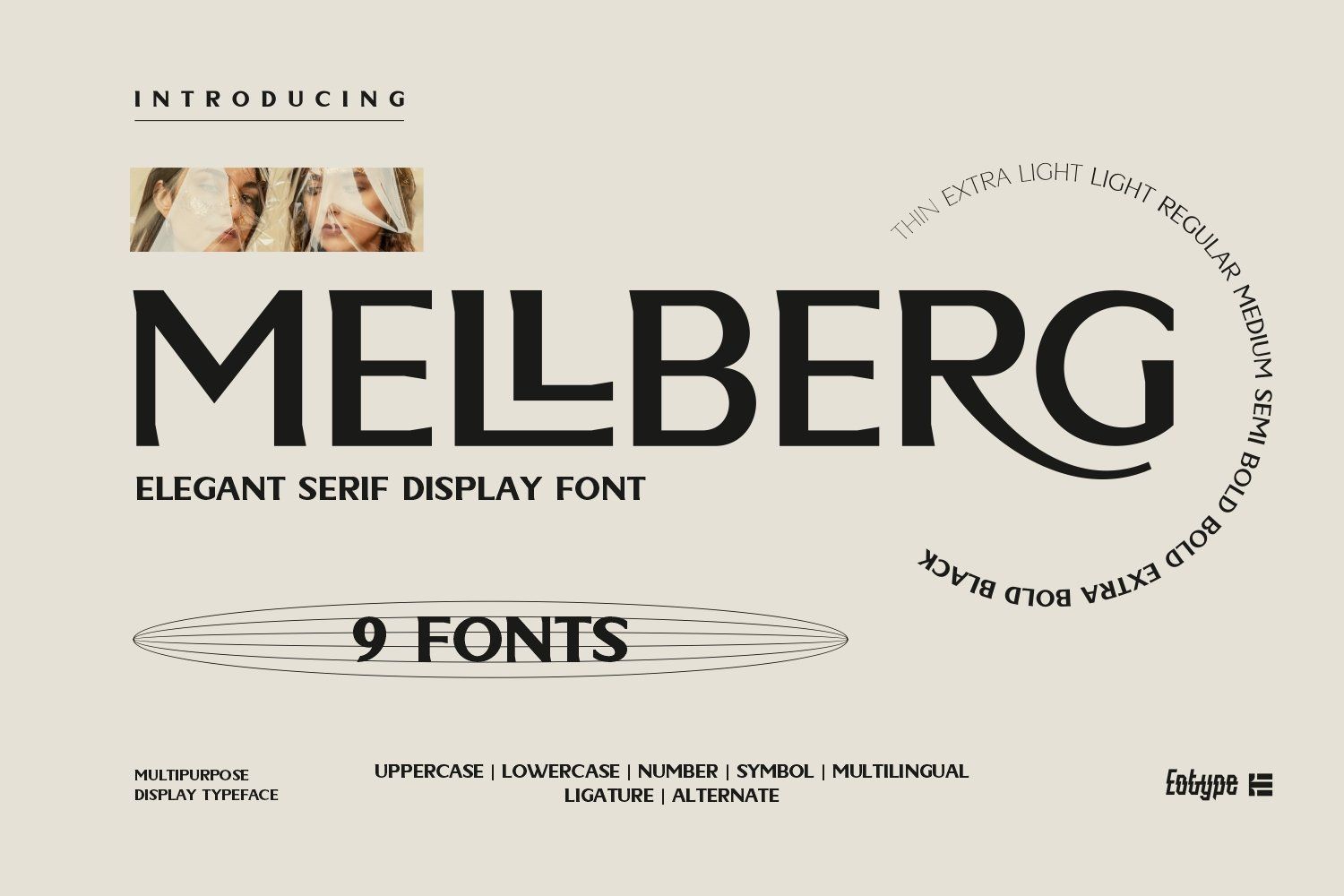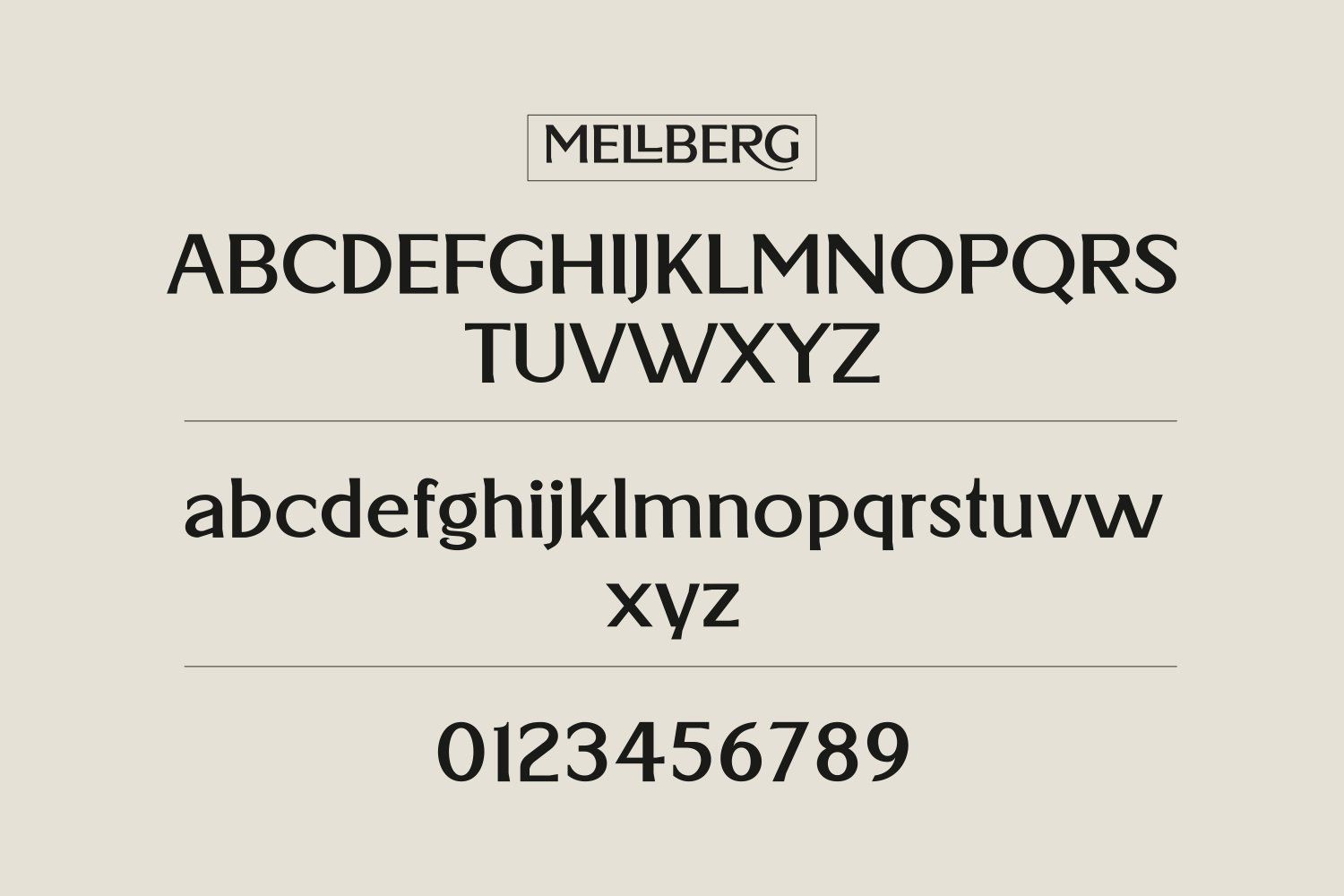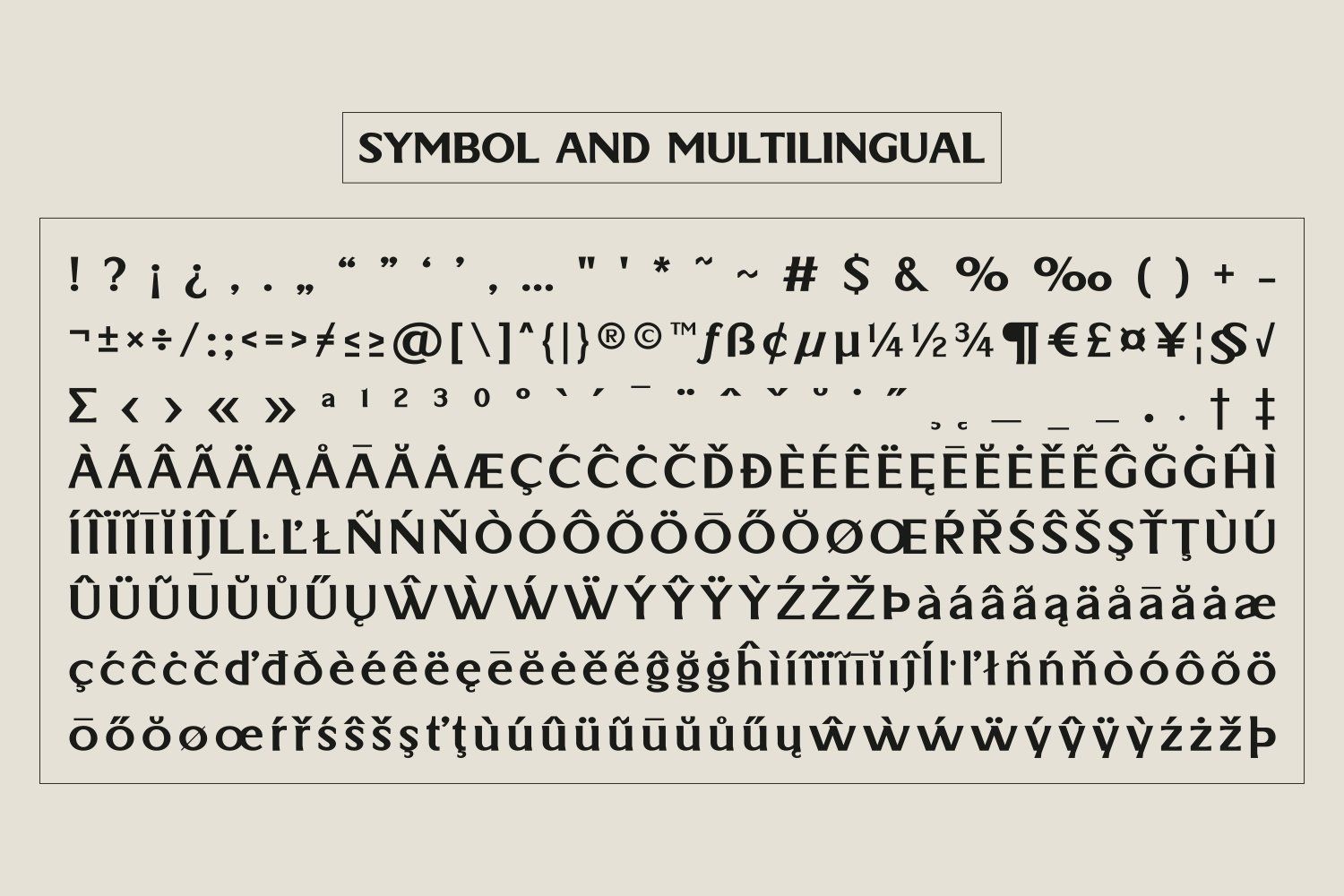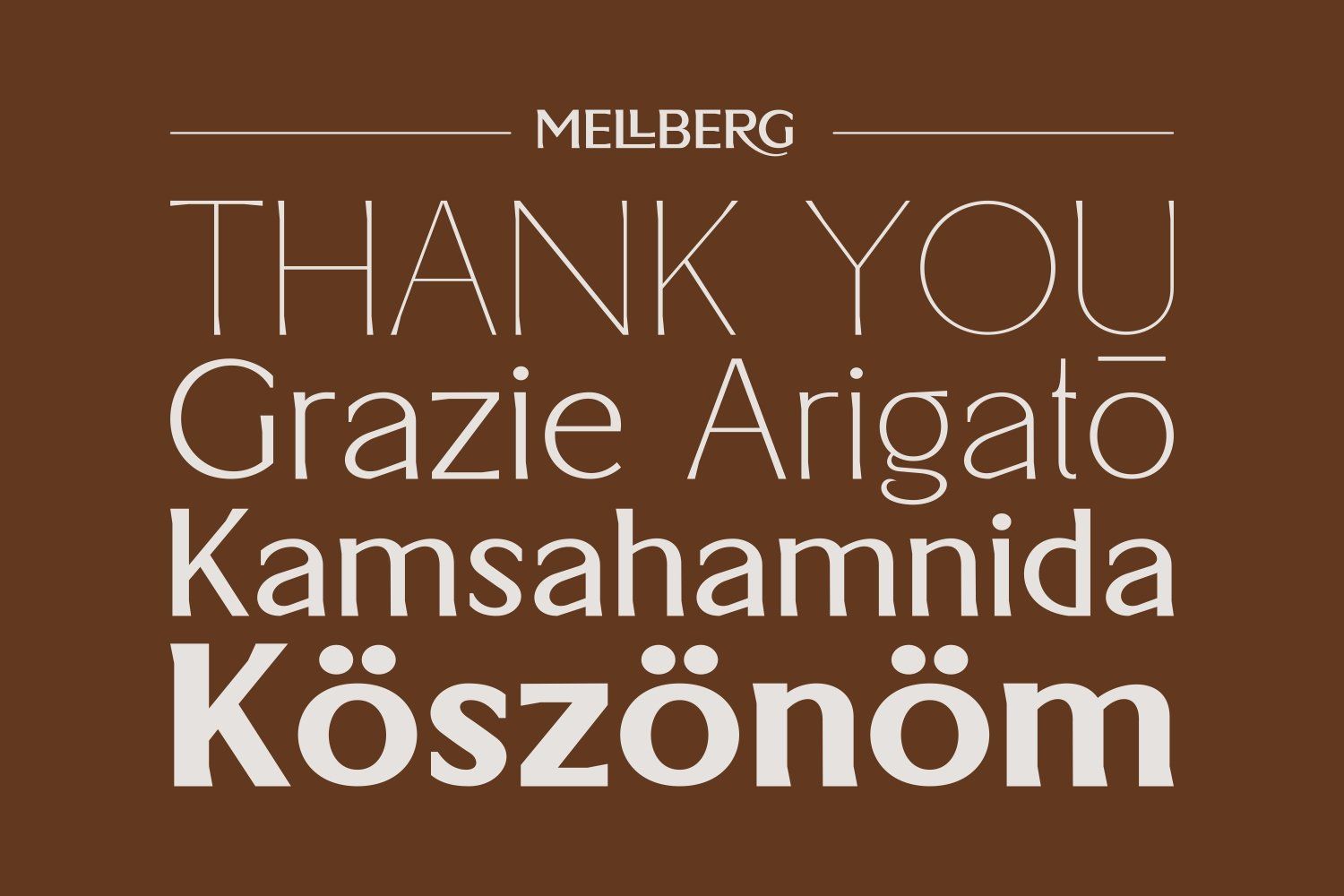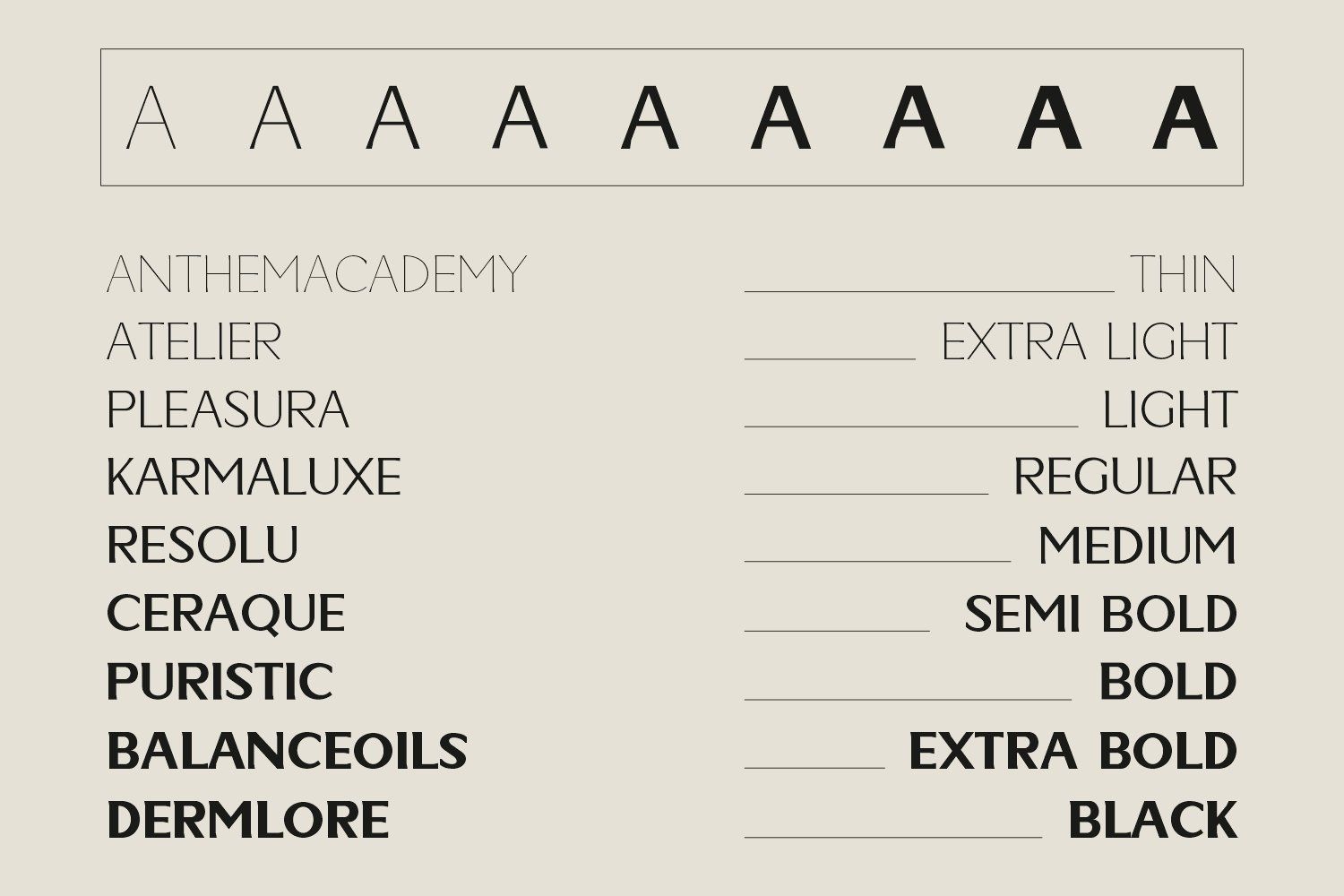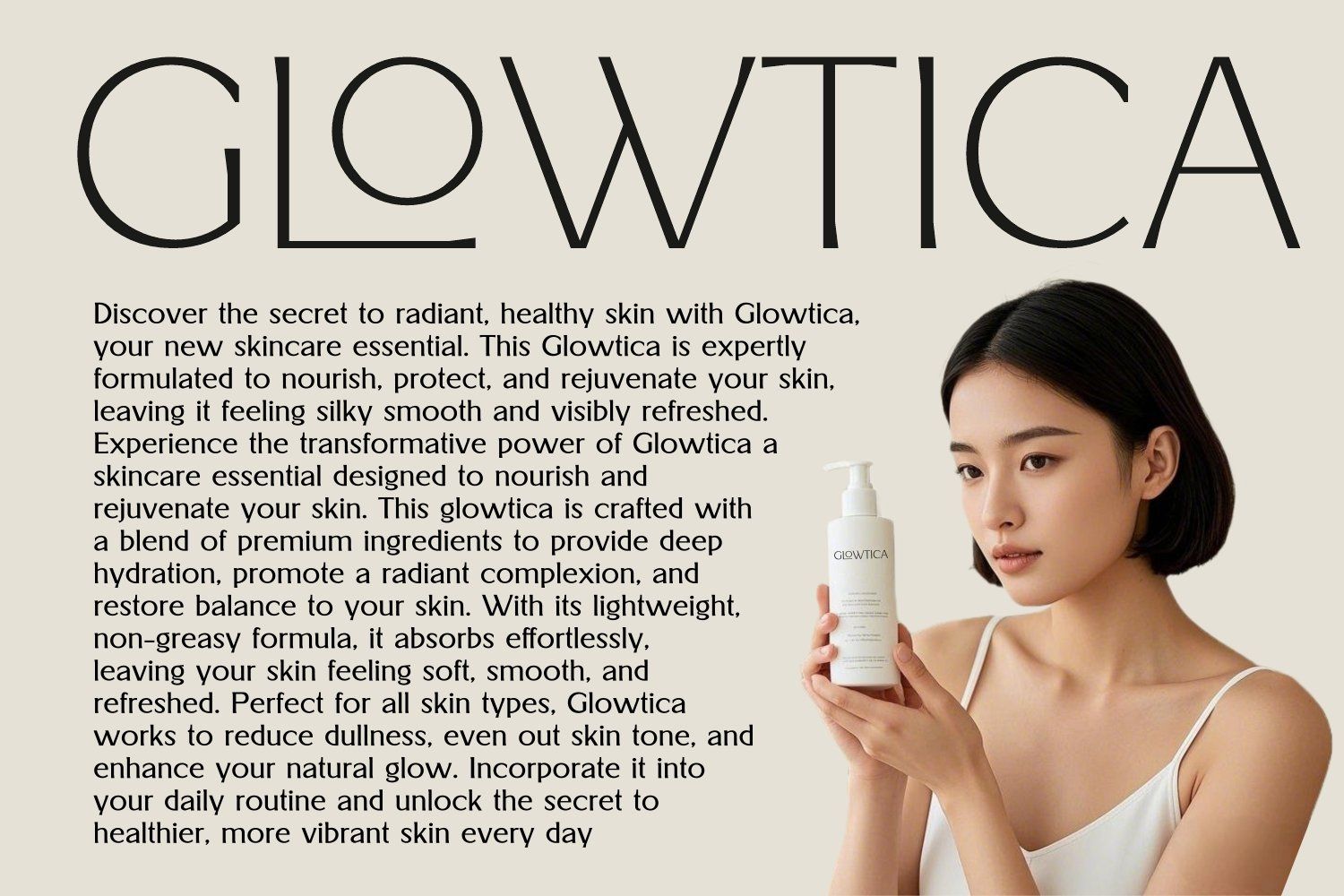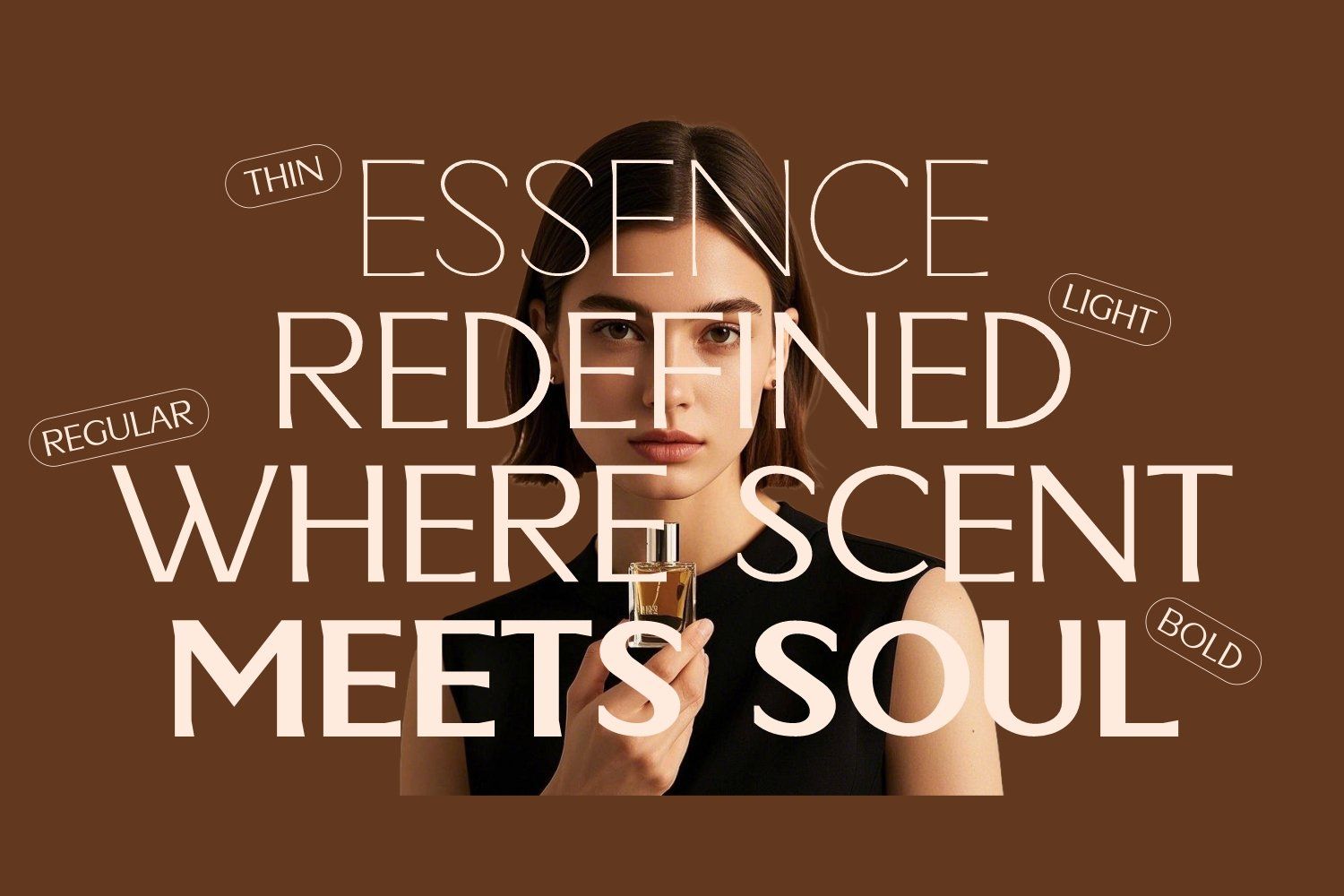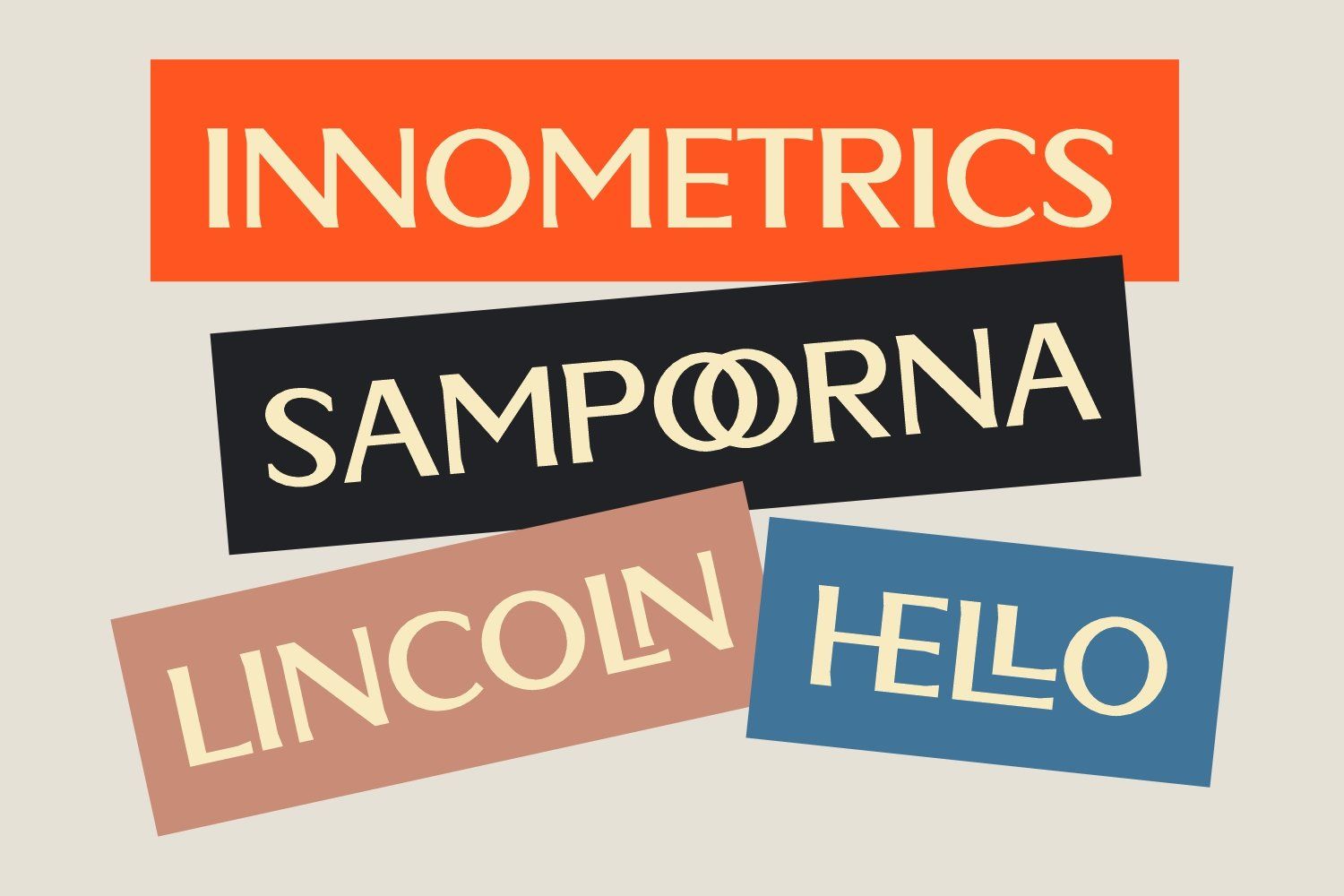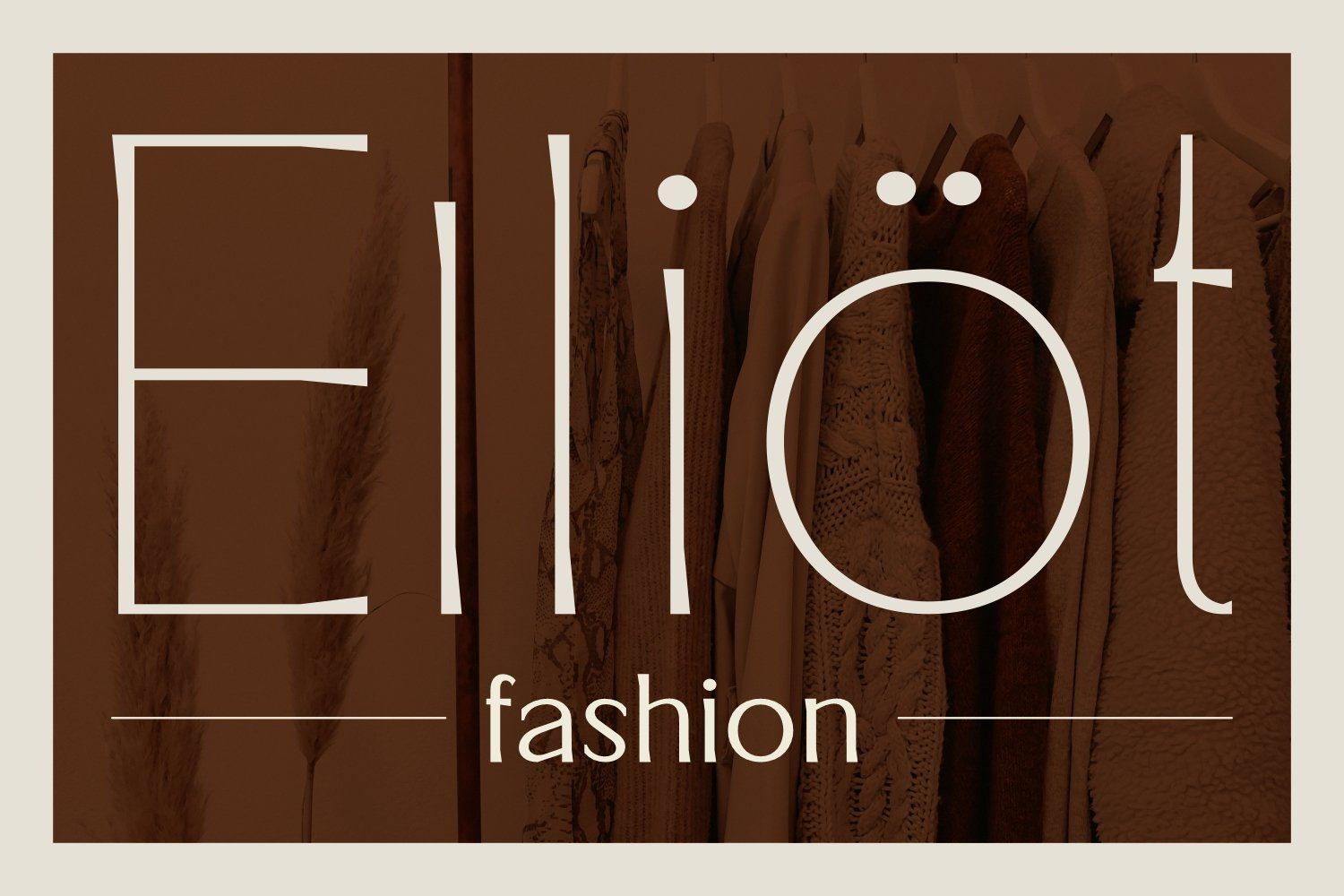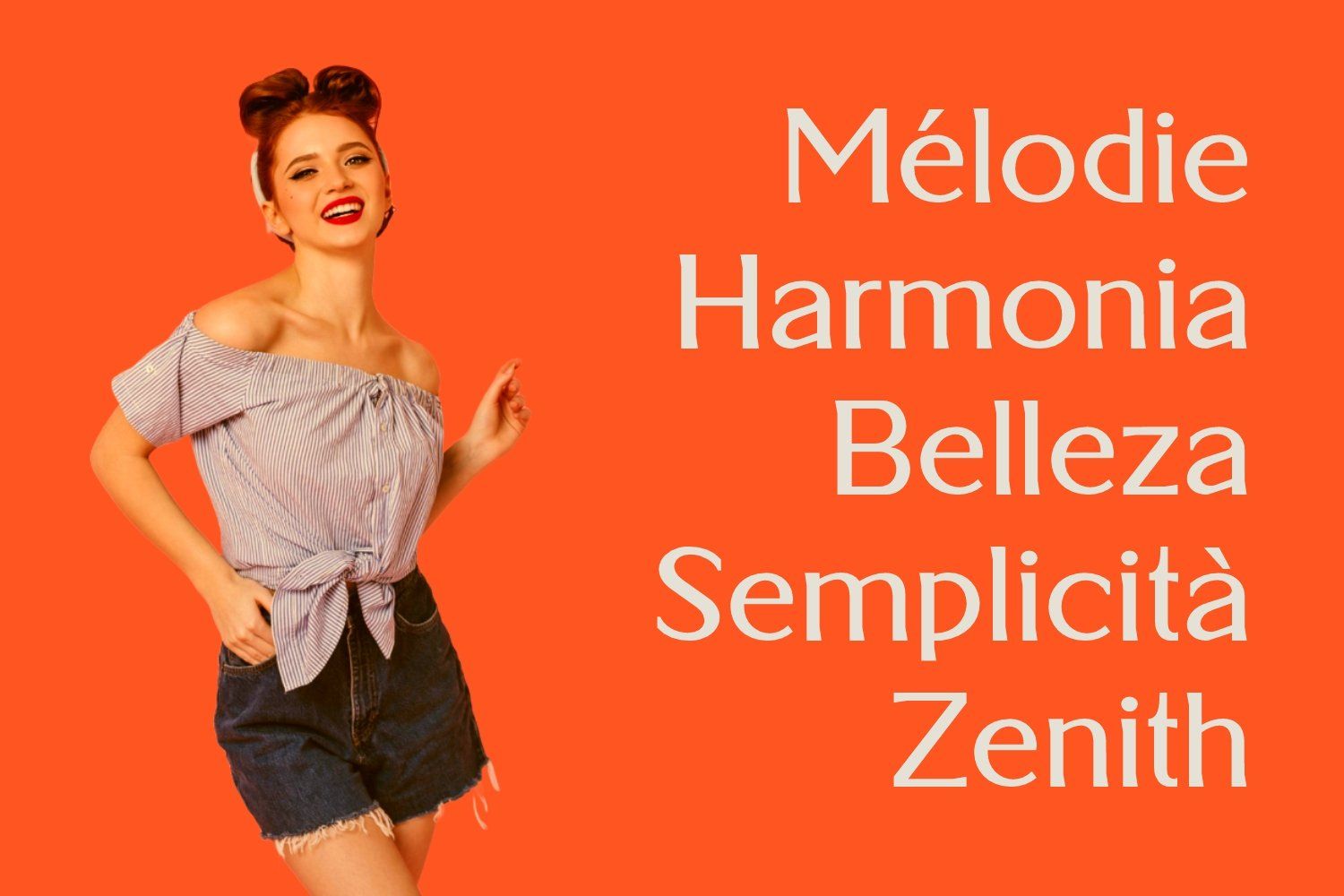
Elevate your design projects with the Mellberg Serif font family—a meticulously crafted collection of nine elegant styles designed to infuse your creations with sophistication and charm. Perfect for brands, publications, and creatives seeking a timeless yet versatile typographic solution. Mellberg Serif offers a harmonious blend of modern and classic aesthetics. The family includes 9 styles, each tailored to meet diverse design needs.